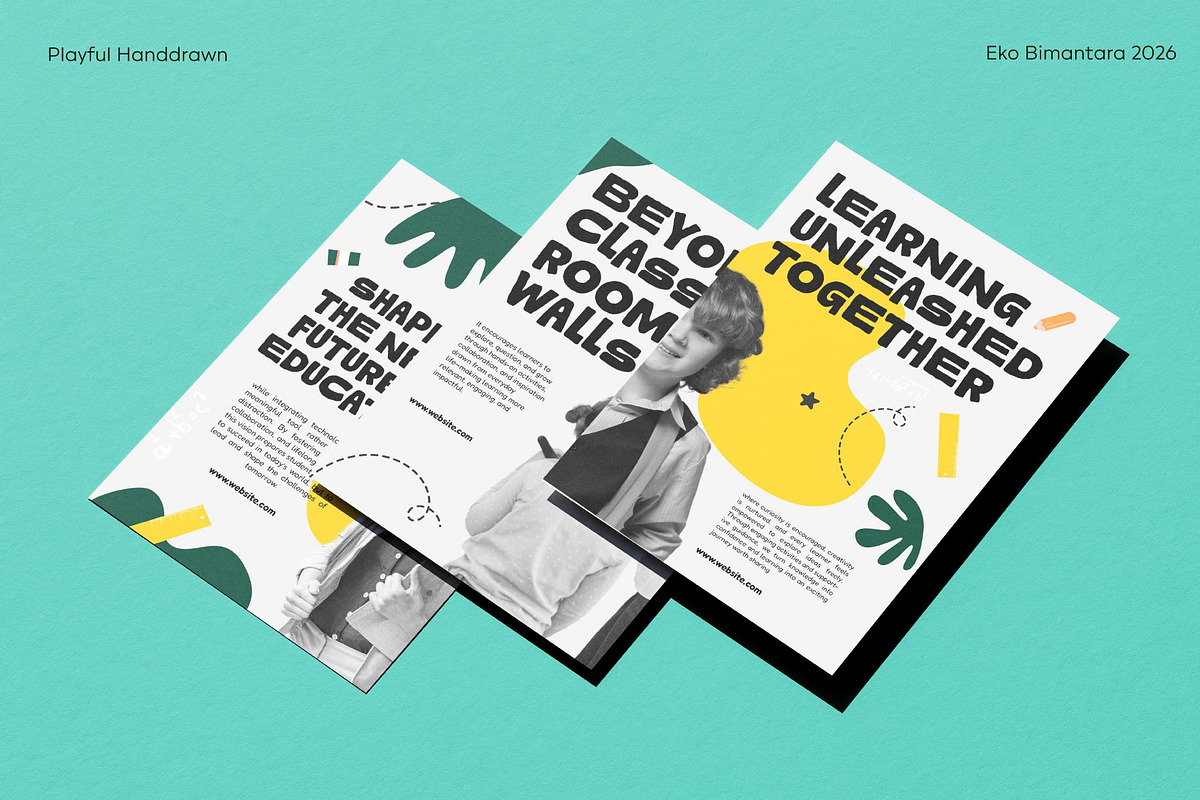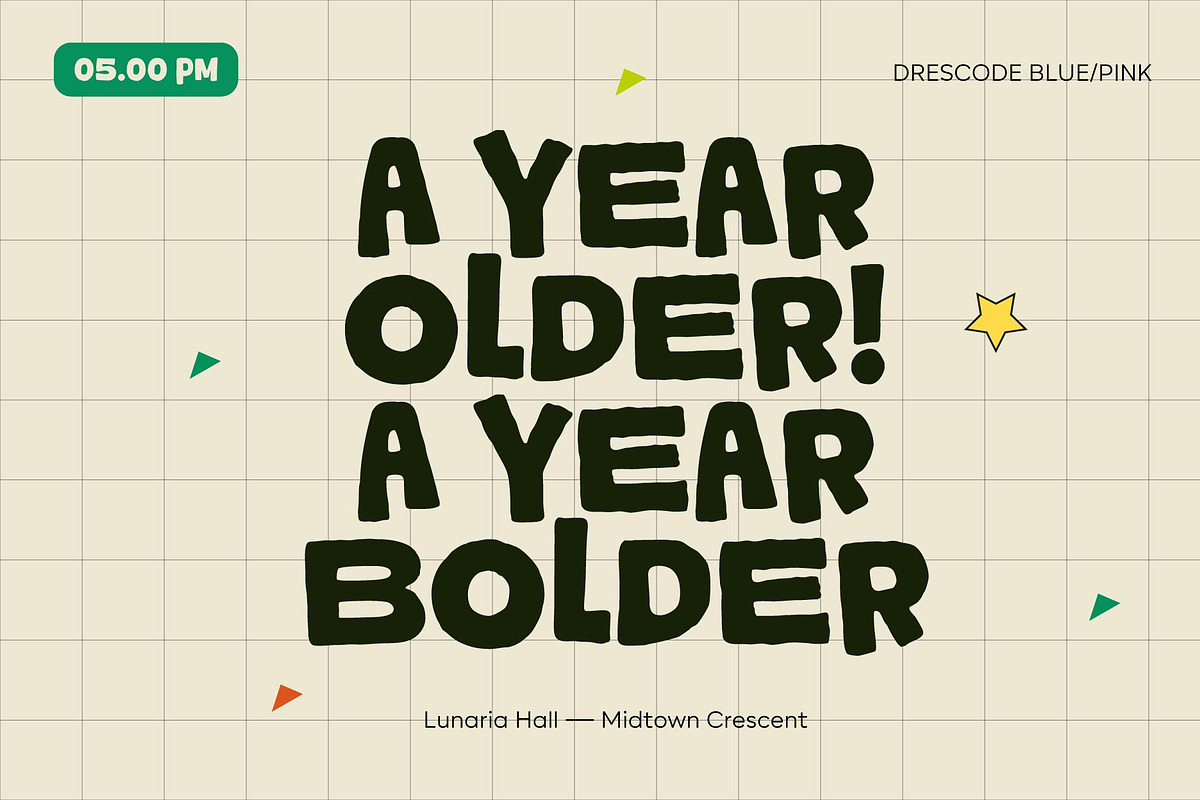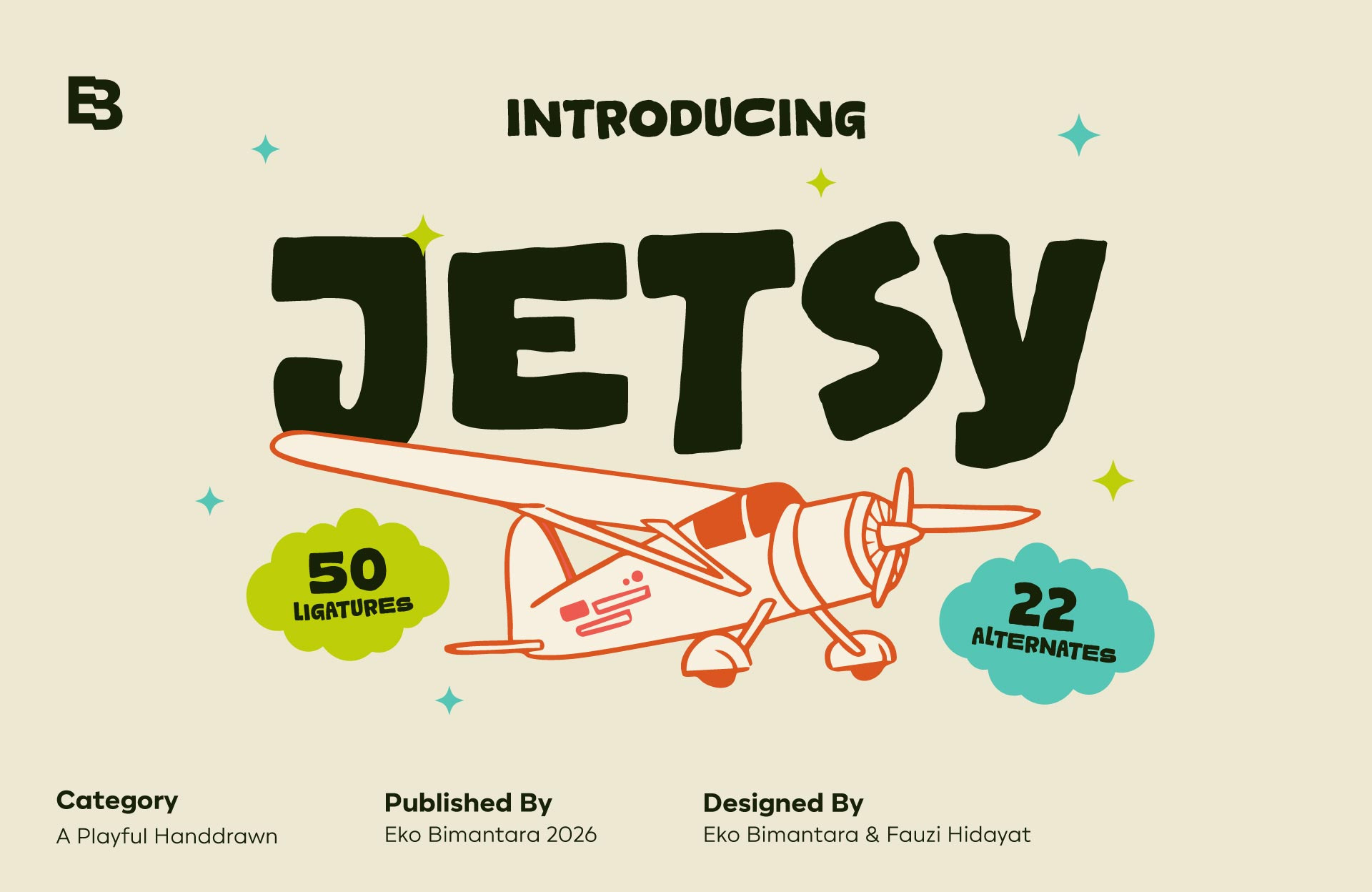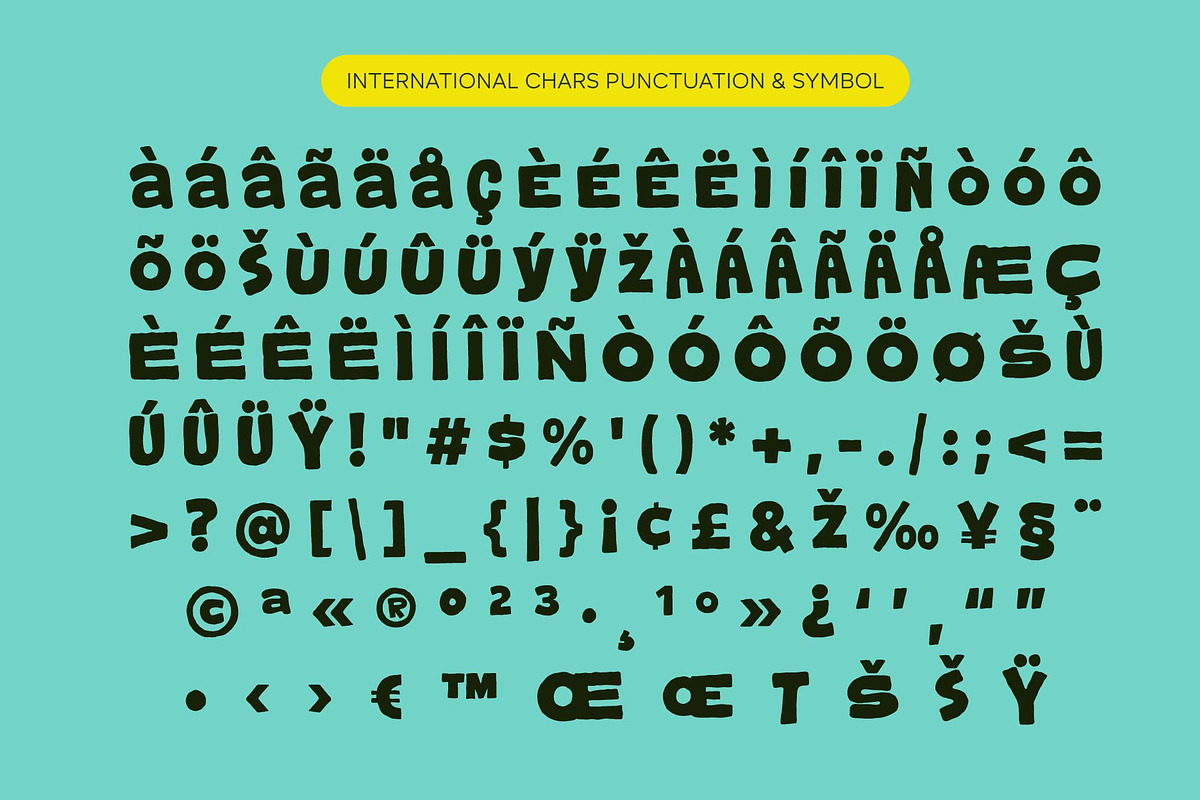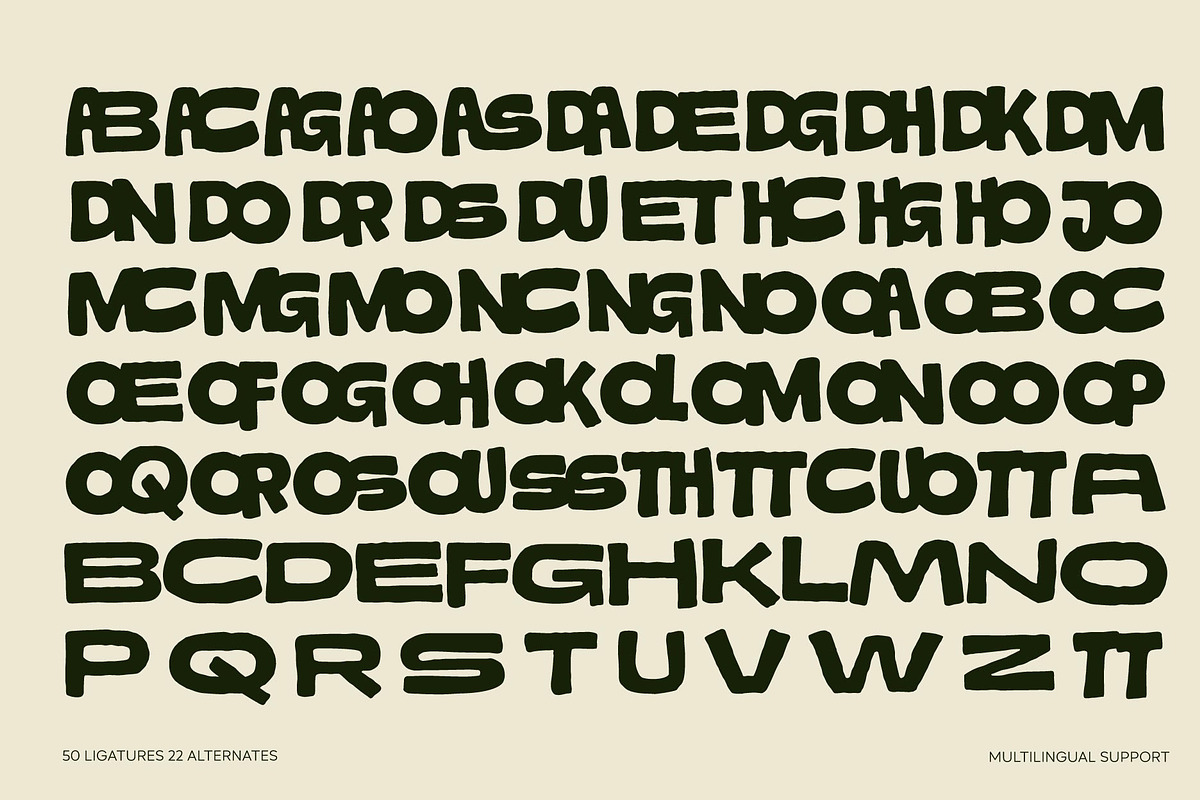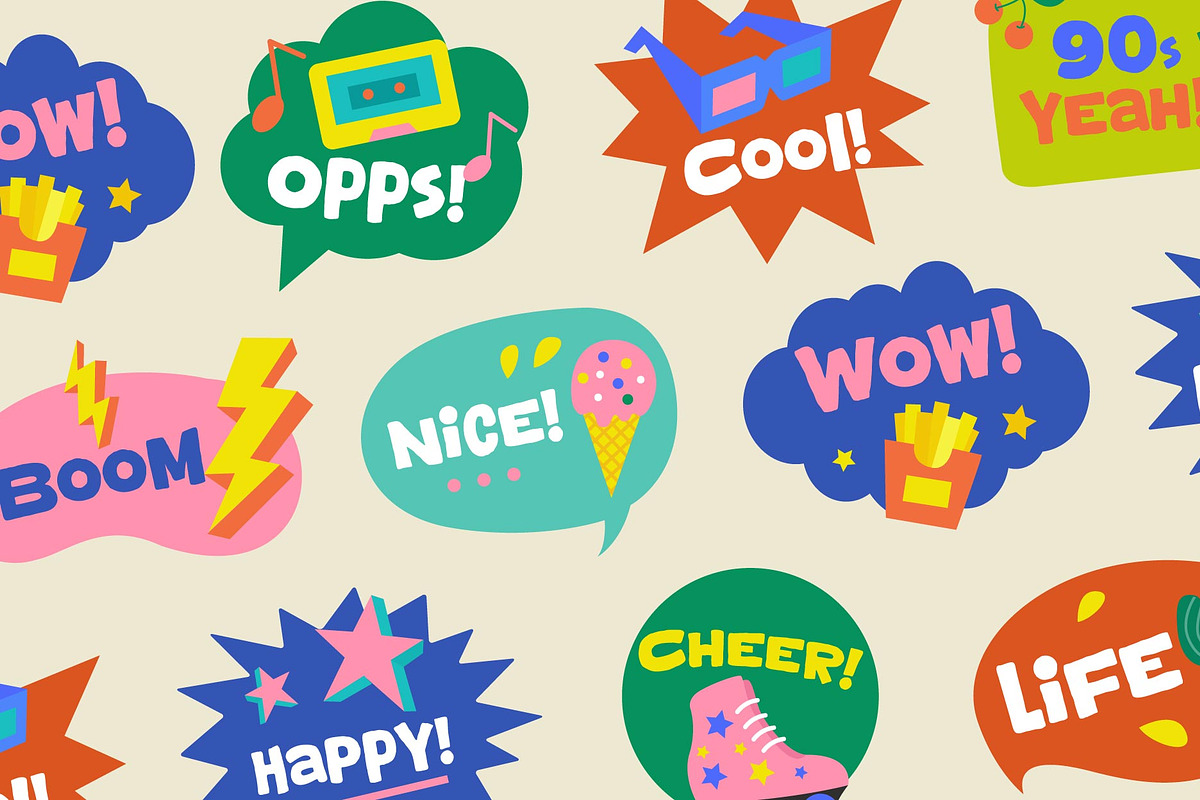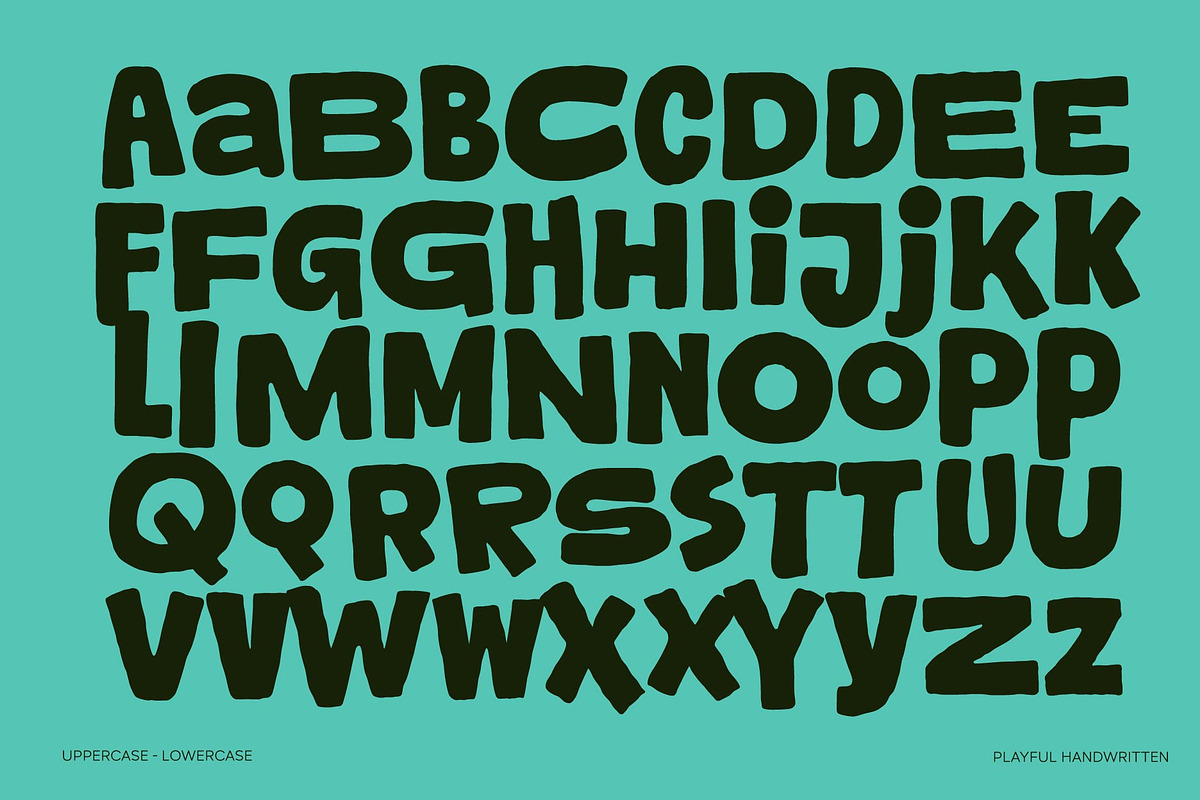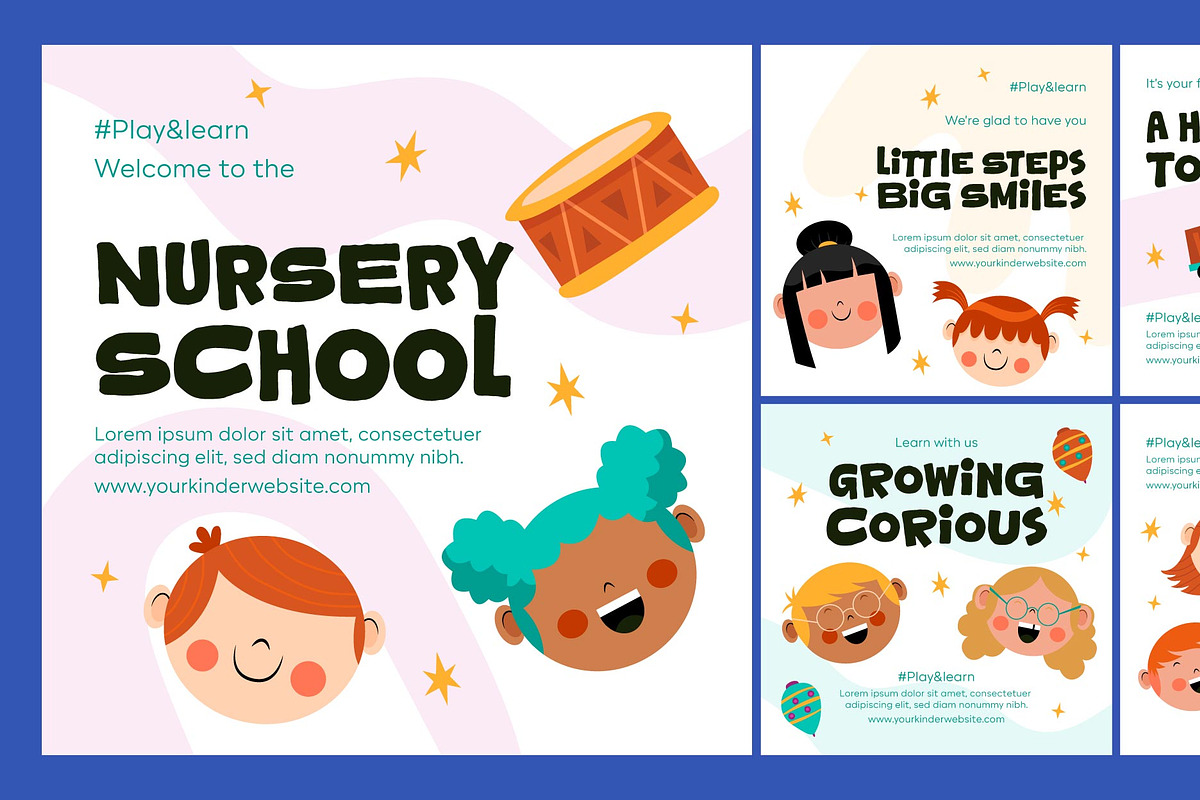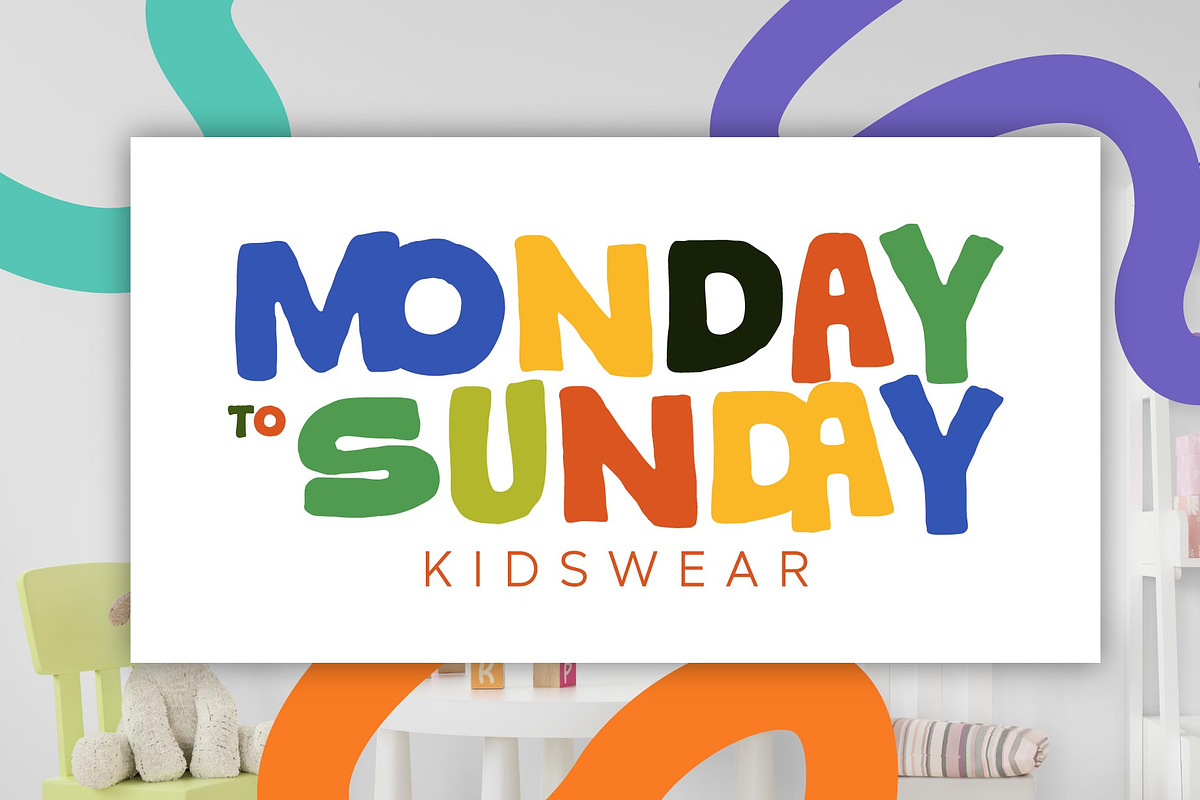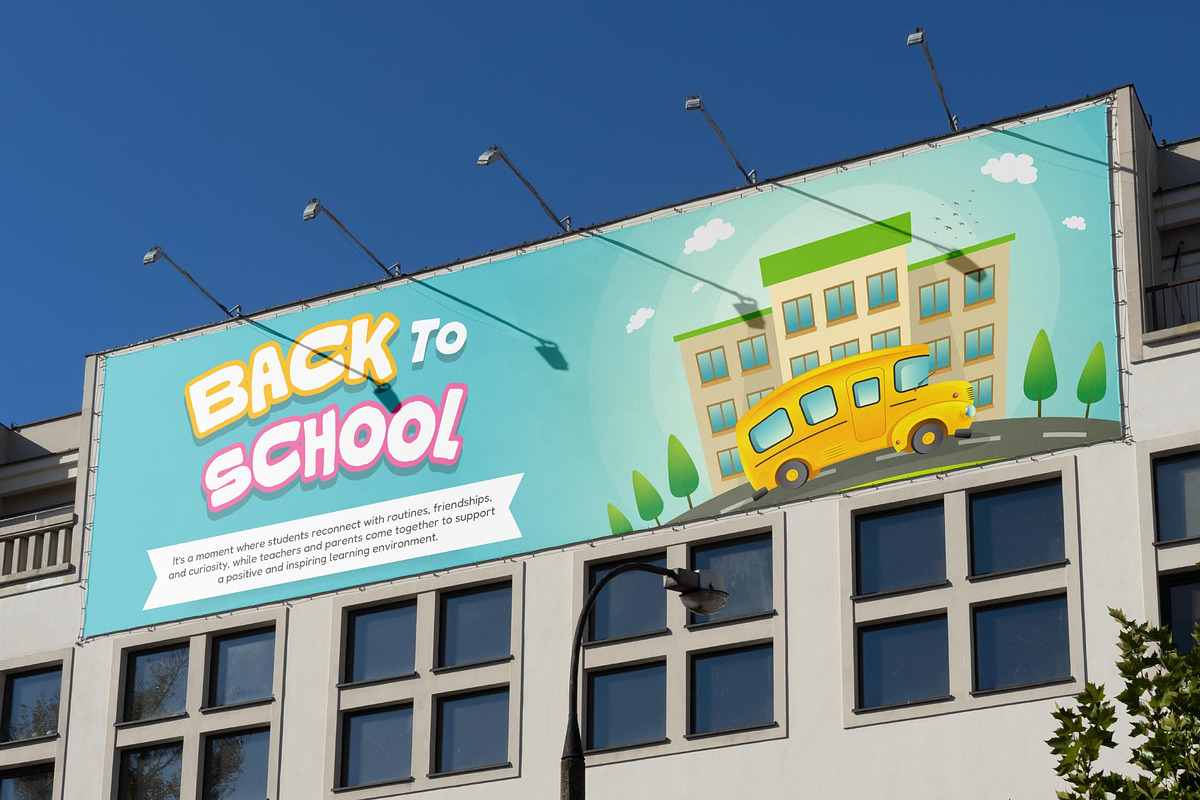
Jetsy; Playful Bold Display Font
Jetsy is a fun, bold, and playful display font with a rough outline texture and whimsical letter proportions that bring lively character to every word. Its unique ligatures add unexpected charm and movement, making the typeface feel expressive and full of personality. Designed to stand out, Jetsy is perfect for branding, kids-themed designs, food and drink projects, headers, titling, and a wide range of creative needs where an energetic and joyful typographic voice is required.